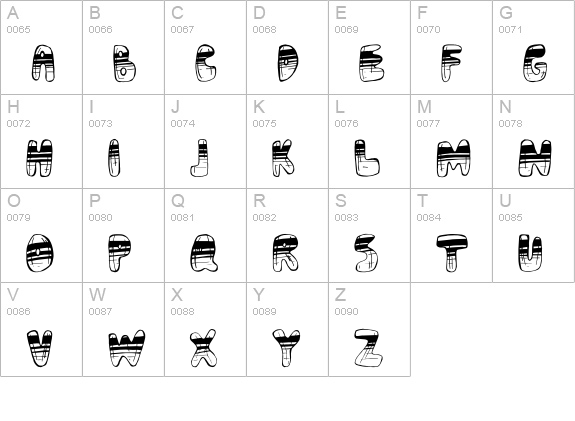
Adrenochrome Font Details
Adrenochrome font is a striking and modern typeface that exudes energy and creativity. Its bold and dynamic letterforms make it perfect for a variety of design projects, from logos to headlines to posters. The font's unique style is sure to make your text stand out and grab attention. What sets Adrenochrome font apart is not only its eye-catching design, but also the fact that it is completely free to download. Yes, that's right - you can get your hands on this fantastic font at no cost at FontsMarket.com. Whether you're a designer looking to add a fresh look to your work or a business owner in need of a new branding font, Adrenochrome is the perfect choice. Don't miss out on the opportunity to enhance your projects with this amazing font - download Adrenochrome today!